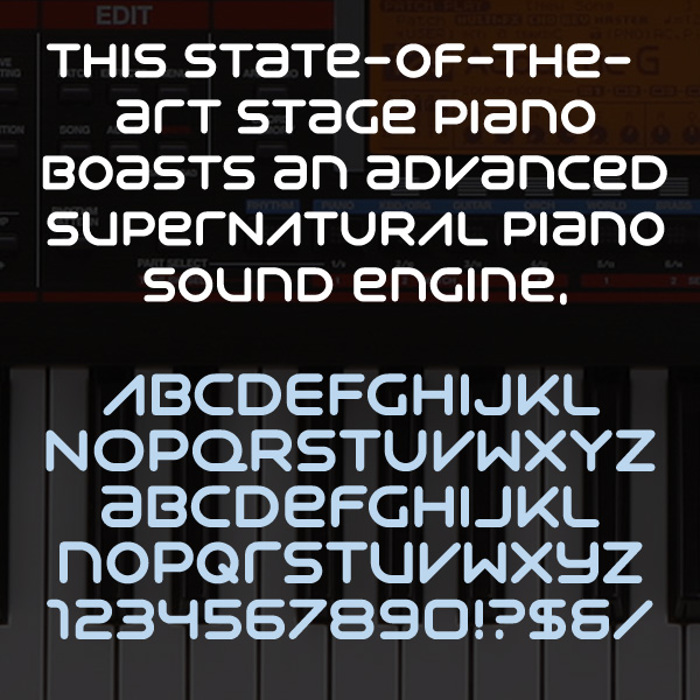
Syntha Font
Ultra Regular Style
Rounded display typeface useful for electronic music party flyers, record label or DJ logos. It has been inspired from vintage synthesizer abbreviations, hence the name.